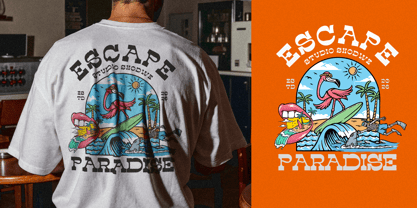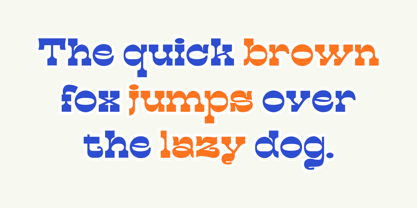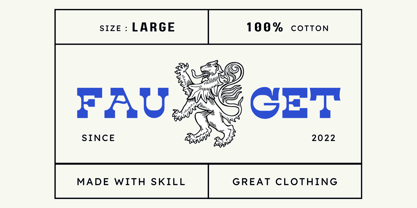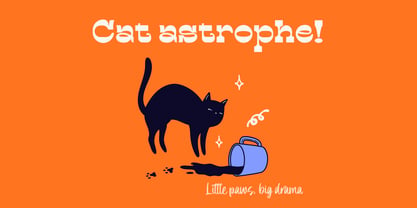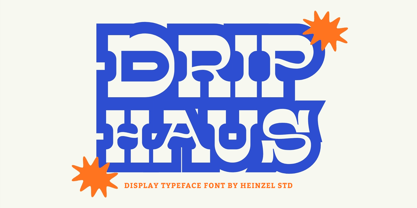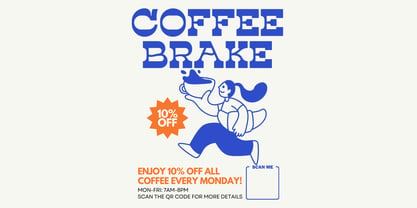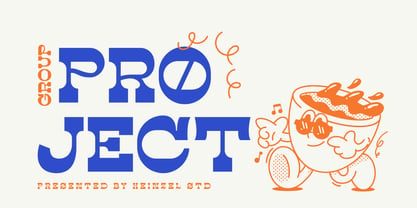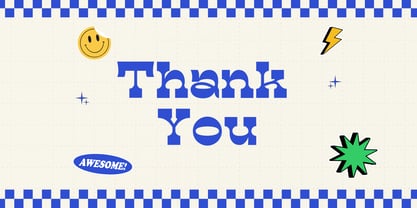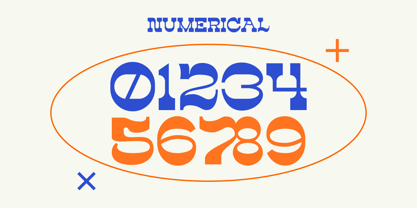
Drip Haus
by Heinzel Std
The Drip Haus Font Family was designed by Nofi Sofyan Hadi and published by Heinzel Std. Drip Haus contains 1 styles. More about this family
Drip Haus is a bold and distinctive display font inspired by vintage slab serif typography with a modern experimental twist. Featuring thick letterforms, unique curves, and strong geometric shapes, this typeface is designed to create eye-catching headlines, logos, posters, branding projects, packaging, and editorial layouts. Its striking character brings a retro yet contemporary aesthetic, making it perfect for designers who want to make a powerful visual statement.
Whether you're creating streetwear branding, creative merchandise, music posters, social media graphics, or bold advertising campaigns, Drip Haus delivers maximum impact with its unique personality and strong presence. The font includes multilingual support, allowing it to work across a wide range of international design projects.